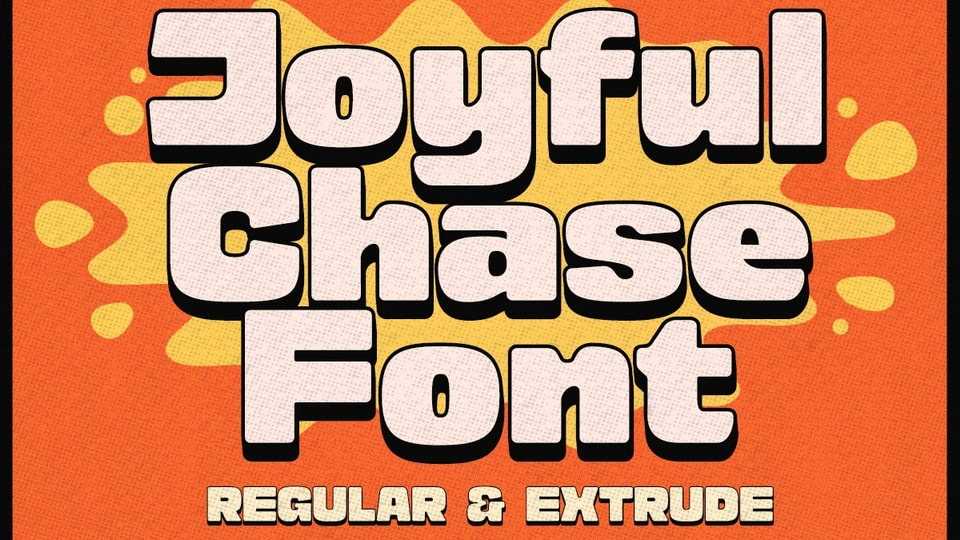
Download Joyful Chase is a display font that effortlessly combines playfulness and classic charm. Joyful Chase font brings a sense of fun and excitement to your designs, making it ideal for creative projects that seek to inspire happiness and wonder.